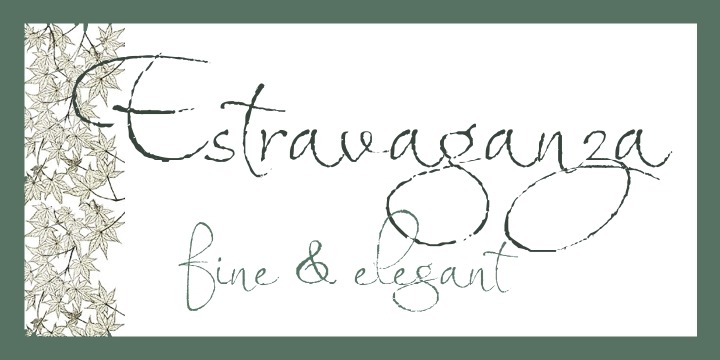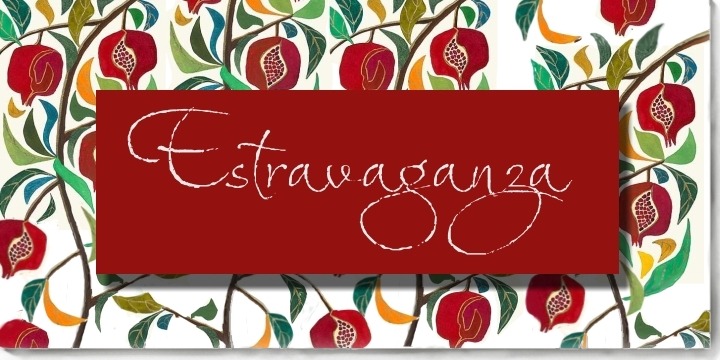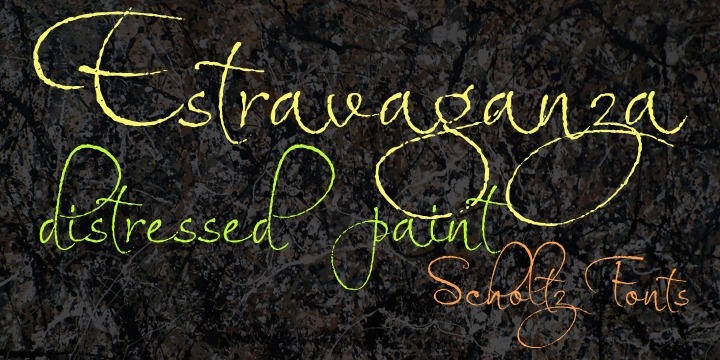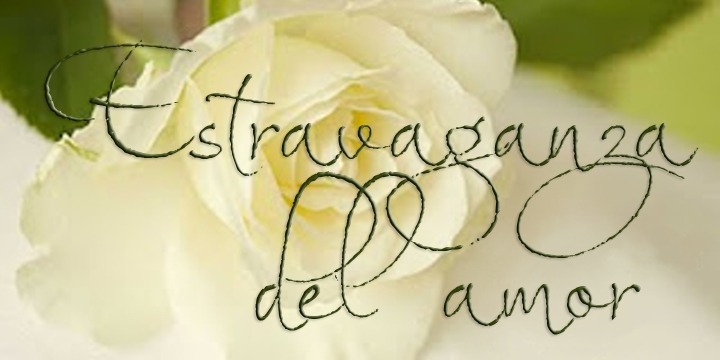
Estravaganza
Font Family by Scholtz Fonts
Estravaganza is an elegant, finely crafted script, with an uneven, drizzled paint line. It has the delicacy of gossamer while boasting the extravagance of bold swashes and loops. Think "ballet-like femininity offset by the distressed paint drizzle of a jackson Pollock canvas."
Use Estravaganza to brand perfume, clothing, jewelry, and to enhance wedding invitations, greeting cards and book covers.